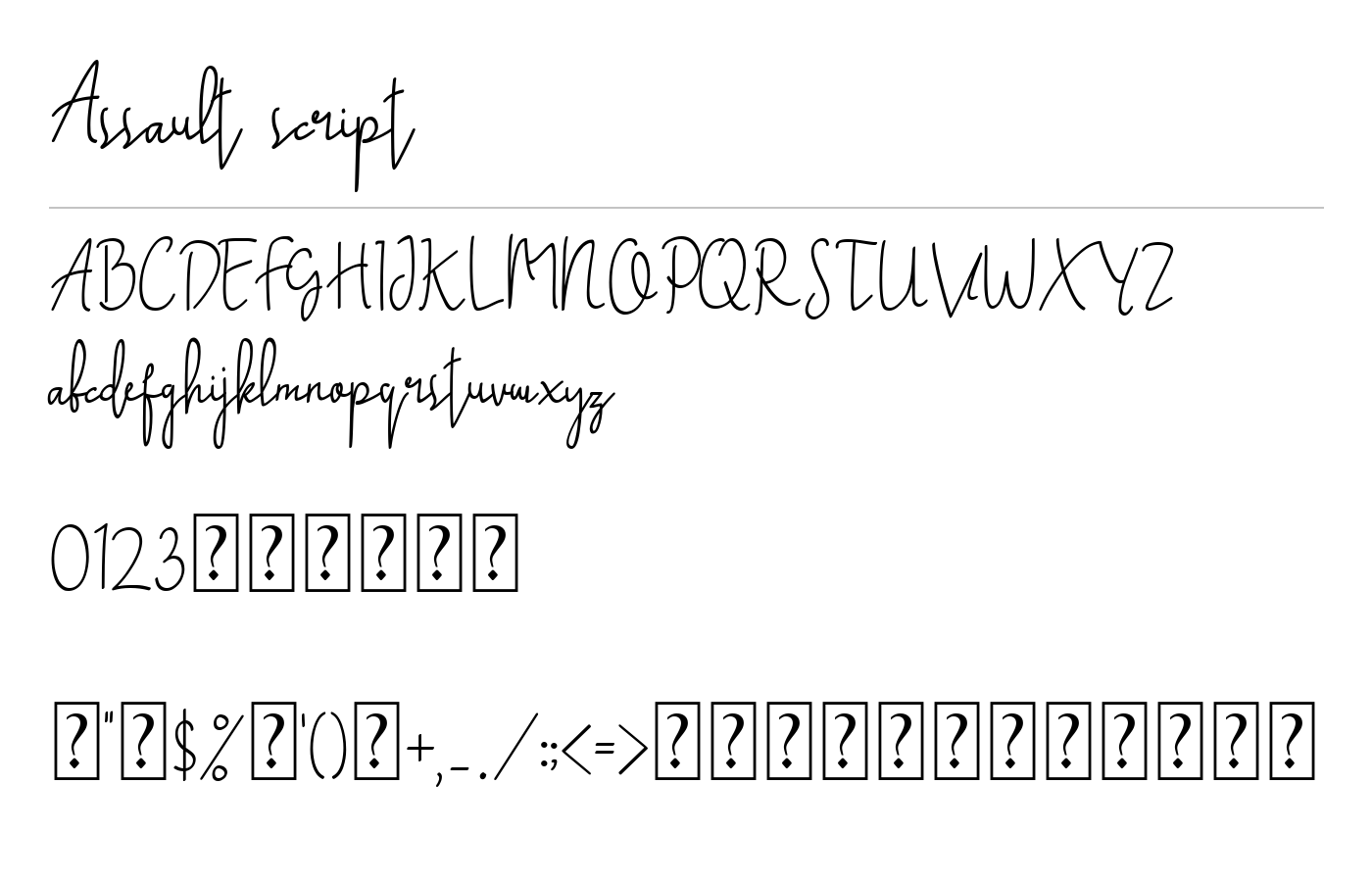
Assault Script is a delicate, narrow handwritten font with a tall x-height and fine, flowing strokes that give it an elegant yet casual appearance. Its slender letterforms and natural, slightly erratic lines make it well-suited for creative projects that want to convey a personal or artistic touch, such as invitations, branding, or editorial headlines. This font works best where a stylish, handcrafted feel is desired without sacrificing legibility.
Assault script Font